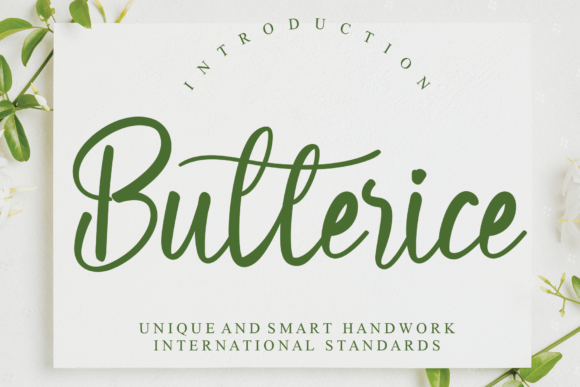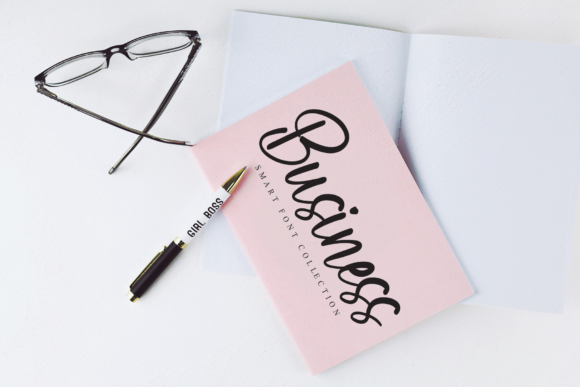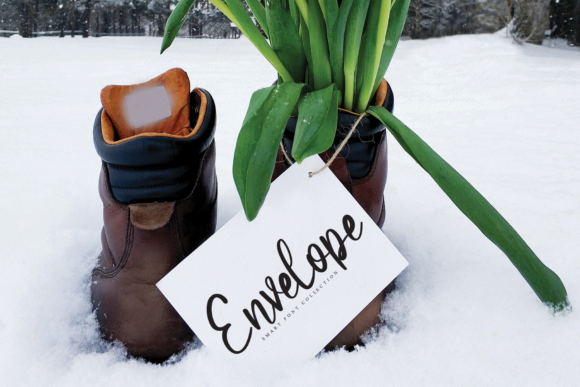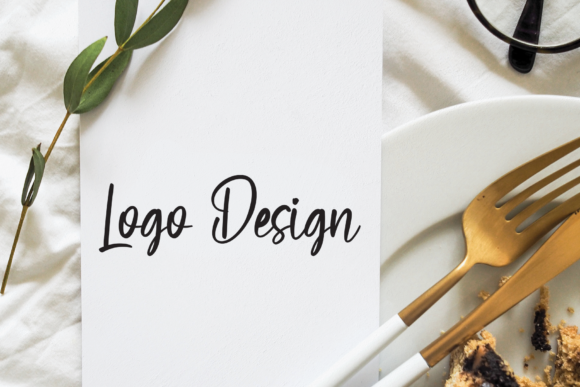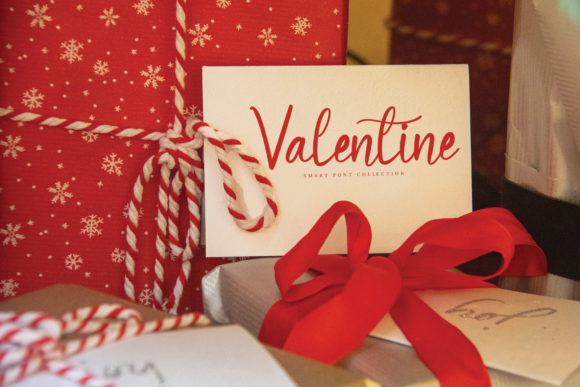
About Butterice Font
Butterice is a delicate and elegant handwritten font. Its distinct and well balanced letters make this font a masterpiece. Fall in love with its incredibly versatile style and use it to create spectacular designs!